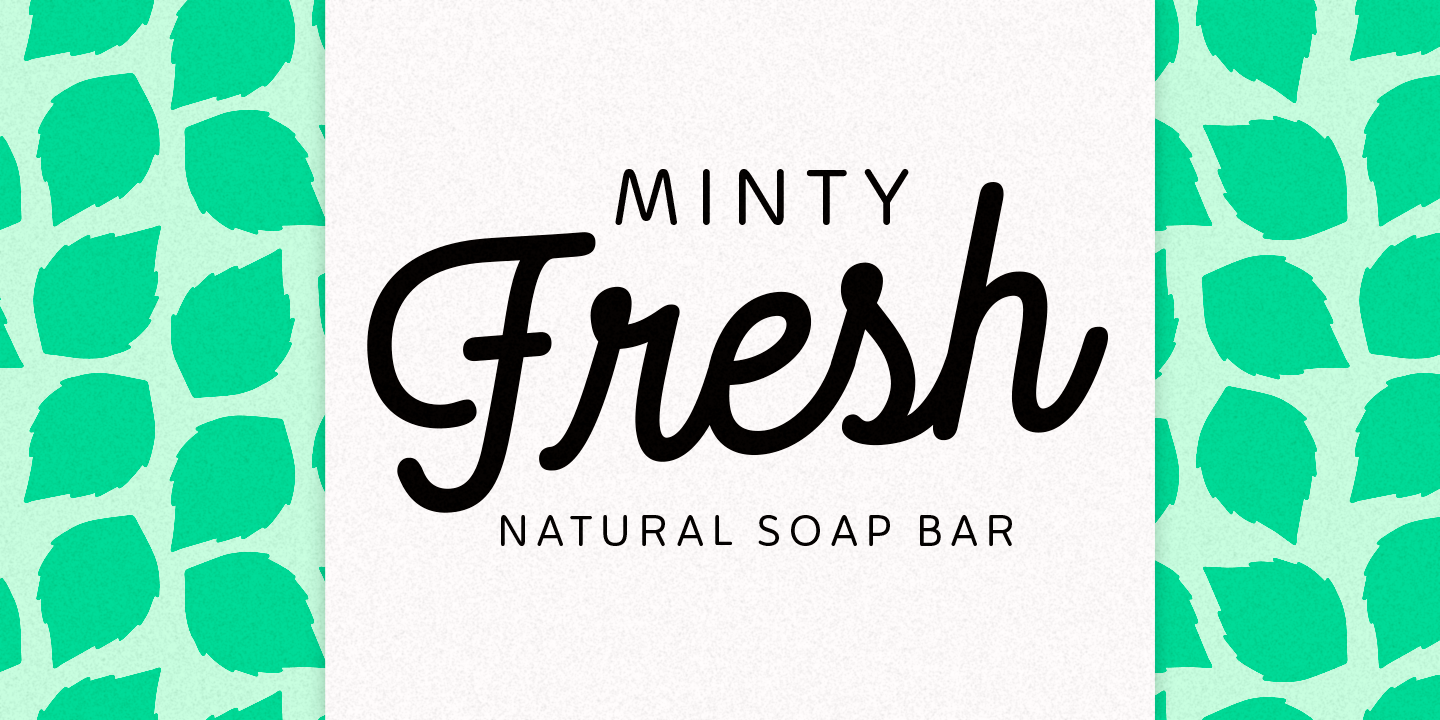
Aromatica Font is perfect for organic design applications including natural cosmetics branding, aromatherapy products, organic food packaging, wellness center signage, spa marketing materials, botanical publications, essential oil labels, and holistic health promotions. This elegant typeface captures the essence of natural beauty and therapeutic wellness through sophisticated organic aesthetics.
What makes Aromatica Font exciting is its harmonious blend of natural elegance with contemporary sophistication that evokes the pure essence of botanical ingredients and therapeutic aromas. The font features flowing letterforms with gentle curves and organic details that mirror the graceful beauty of nature's healing properties. Its wellness-inspired character appeals to audiences seeking authentic natural solutions and mindful living.
The Aromatica Font family includes various wellness-inspired styles such as Light, Regular, Medium, and decorative alternates with botanical flourishes that enhance the natural aesthetic. These organic options provide comprehensive design solutions for creating authentic wellness brand identities that celebrate natural healing and aromatherapy traditions.
This distinctive wellness typeface brings genuine natural authenticity to contemporary health and beauty projects. Wellness brands and natural product companies choose Aromatica Font Free Download for its exceptional ability to communicate purity and therapeutic sophistication. The font's botanical inspiration makes it perfect for aromatherapy brands, organic skincare lines, and wellness centers that want to convey natural healing and holistic health benefits. Its elegant character ensures memorable brand recognition while maintaining the authentic aesthetic that defines exceptional wellness-focused design work.